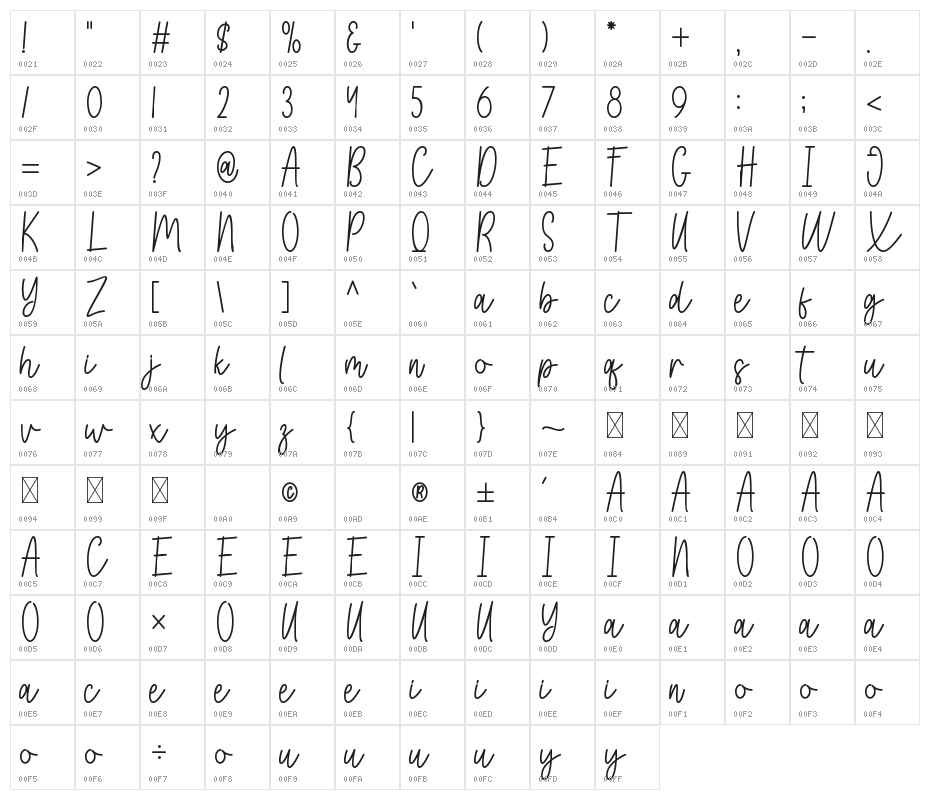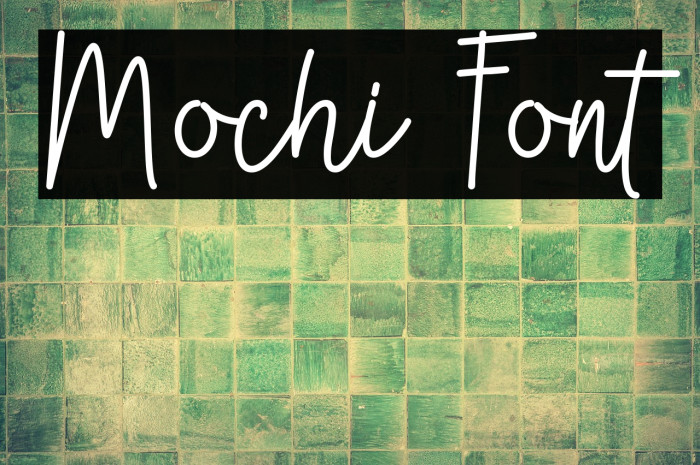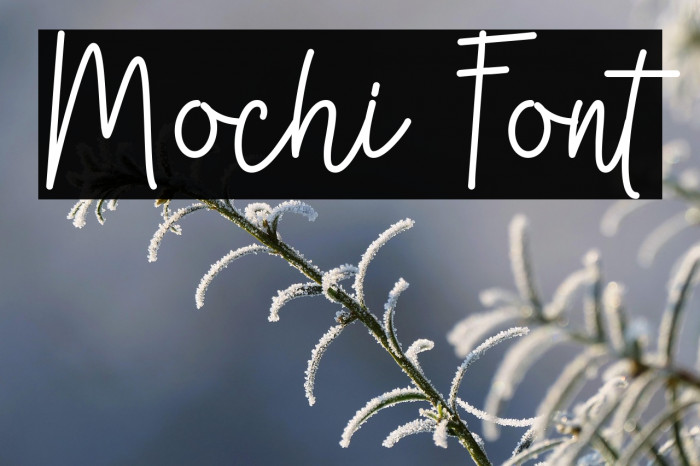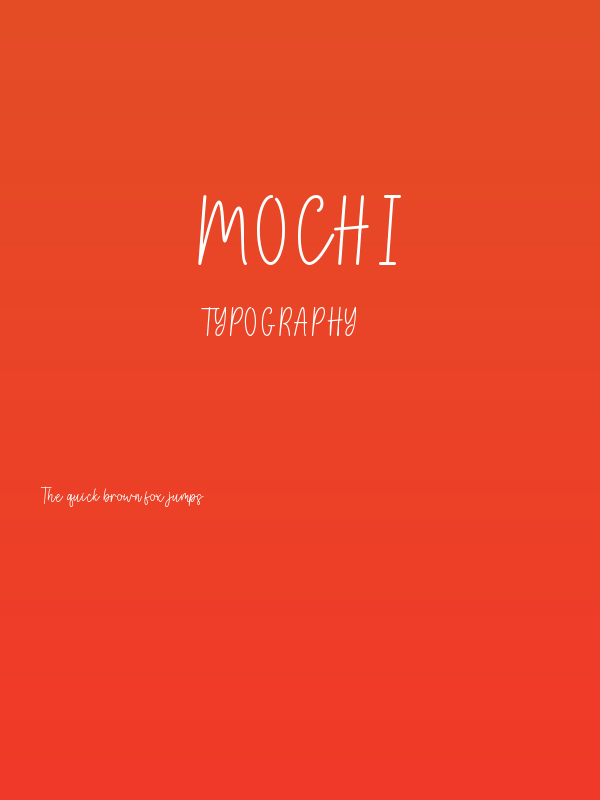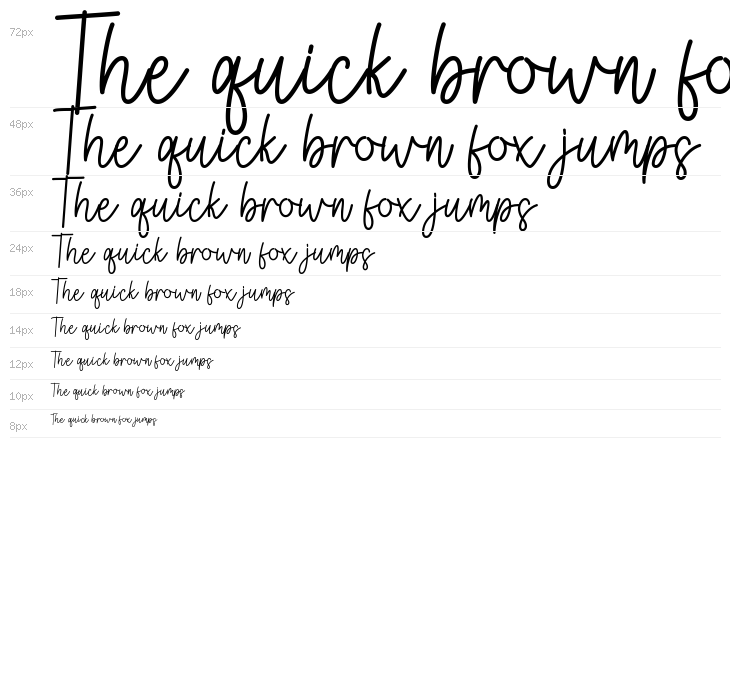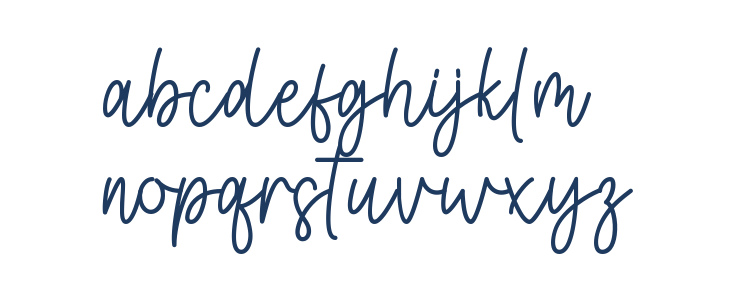
Mochi Font
Mochi Description
This playful and whimsical font features a handwritten style with a casual and friendly appearance. The letters are slightly tilted, giving them a dynamic and lively feel. The strokes are smooth and consistent, with a moderate thickness that maintains readability. The uppercase letters are tall and narrow, while the lowercase letters have a more relaxed and flowing form. The numbers and special characters complement the overall style, maintaining the same playful and informal tone. This font is perfect for projects that require a personal touch or a fun and approachable aesthetic.
| Overall Style | Playful, Casual |
| Use Case | Headlines, Informal text, Branding |
| Proposed Projects | Ideal for greeting cards, children's books, playful branding, and social media graphics. |